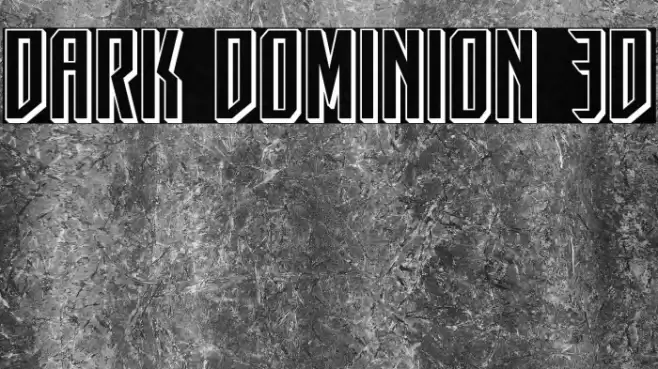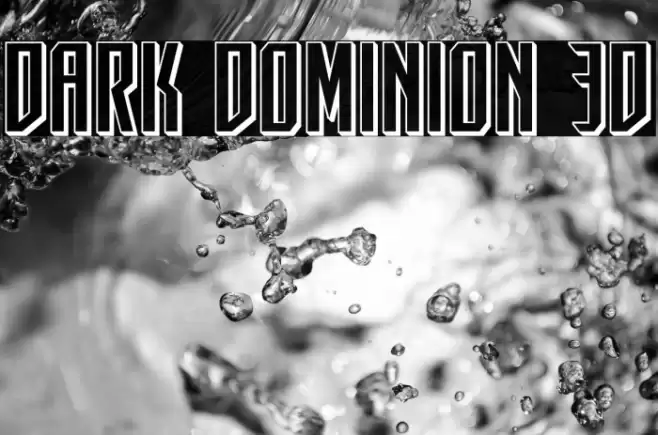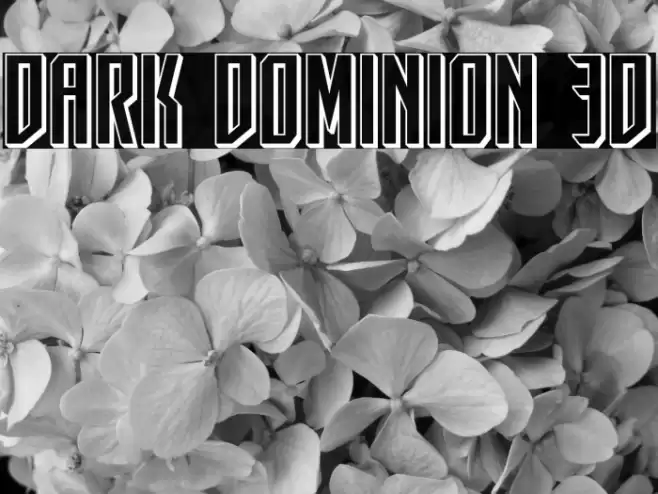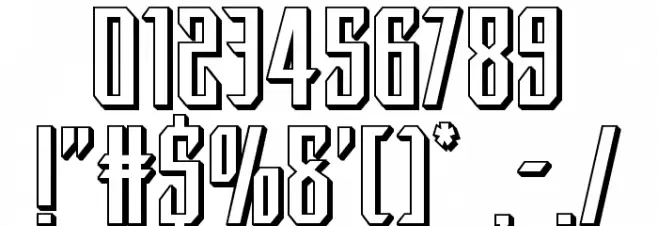
Dark Dominion 3D Font
Dark Dominion 3D Description
This font features a bold, three-dimensional design with a strong, angular structure. Each character is outlined, creating a shadow effect that adds depth and a sense of movement. The uppercase letters are tall and narrow, with sharp edges and a futuristic feel. The numbers and special characters maintain the same bold, outlined style, ensuring consistency across all elements. This font's unique 3D appearance makes it stand out, making it ideal for eye-catching designs.
A bold, 3D outlined font with a futuristic and angular design from Regular fonts.
- Proposed Projects: Ideal for video game titles, movie posters, and branding that requires a modern and impactful look.